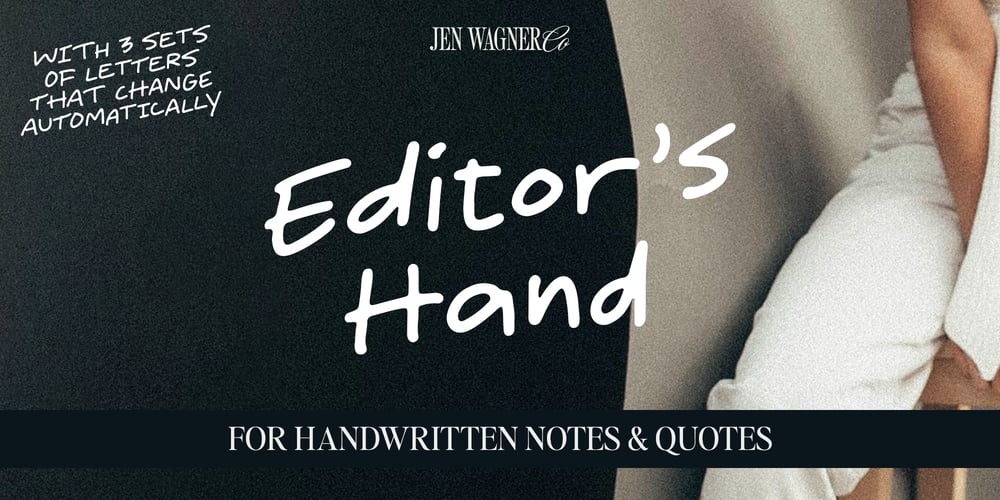
Editors Hand Font Family was designed by Jen Wagner and published by Jen Wagner Co.. Editors Hand contains 1 styles and family package options. Say hello to Editor’s Hand, perfect for creating handwritten notes, quotes, logos, or just adding a hand-written touch to any project!This font was designed to create the feel of an actual magazine editor’s notes on a design proof.While other handwritten fonts have some visible letter patterns, Editor’s Hand comes with three sets of letters that automatically alternate, so you don’t have to worry about swapping them out yourself!Note: this feature works in Adobe and most Desktop programs (i.e. Word, Pages, etc.), but does not work in CanvaI hope you love using this font as much as I have! I can’t wait to see what you create!